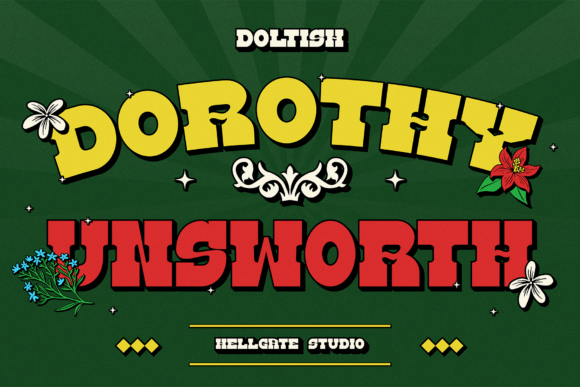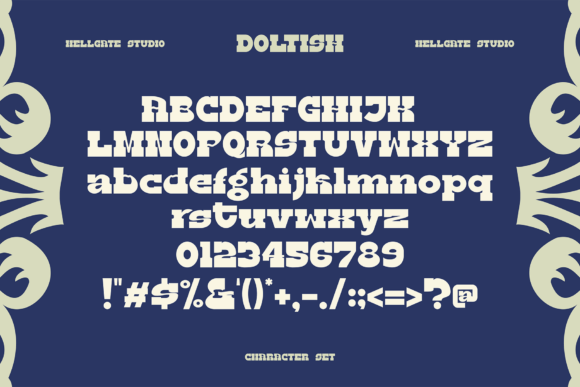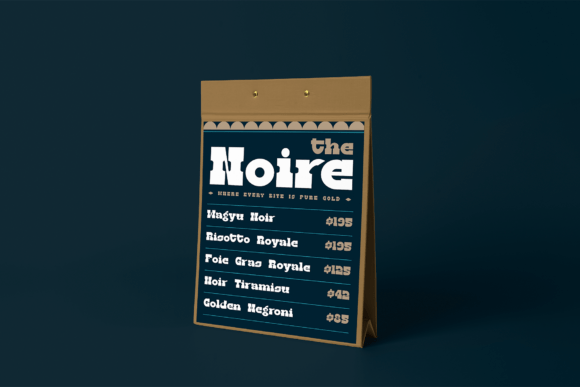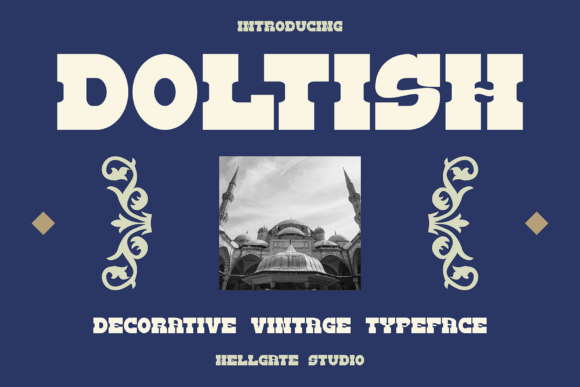
Discover the Charm of Doltish Font: A Vintage Display Typeface with a Playful Twist
Step into a world of charm with Doltish, a vintage display typeface that blends bold shapes with playful, ornate details. This font is designed to bring character, personality, and a touch of whimsy to any creative project. Its chunky, retro-inspired letterforms combined with soft decorative elements make it perfect for projects that want to feel both vintage and fun.
The Unique Characteristics of Doltish Font
Doltish is more than just a font – it’s an experience. Its bold, chunky letterforms are reminiscent of retro typography, while the soft decorative elements add a touch of playfulness and whimsy. This unique combination makes Doltish perfect for designers and crafters who want to add a dash of personality to their projects.
Perfect for a Variety of Creative Projects
Whether you’re working on posters, greeting cards, invitations, packaging, or bold branding, Doltish will make your designs shine with uniqueness. From statement headlines to eye-catching logos, Doltish captures attention instantly and leaves a lasting impression.
Cute Invitations and Greeting Cards
Doltish is ideal for creating cute and playful invitations and greeting cards. Its bold, chunky letterforms and soft decorative elements make it perfect for conveying heartfelt messages and adding a touch of personality to your designs.
Retro Posters and Quotes
Add a touch of nostalgia to your retro posters and quotes with Doltish. Its vintage-inspired letterforms and playful decorative elements make it perfect for creating eye-catching and memorable designs.
Playful Logos and Packaging
Doltish is also perfect for creating playful logos and packaging designs. Its bold, chunky letterforms and soft decorative elements make it perfect for brands that want to stand out and add a touch of personality to their branding.
Children’s Projects and Storybooks
Doltish is a great choice for children’s projects and storybooks. Its playful and whimsical design makes it perfect for creating engaging and interactive designs that kids will love.
Decorative Branding
Doltish is also perfect for decorative branding. Its bold, chunky letterforms and soft decorative elements make it perfect for creating unique and eye-catching brand identities.
Why Choose Doltish Font?
- Unique and eye-catching design: Doltish has a unique and eye-catching design that will make your projects stand out.
- Playful and whimsical: Doltish has a playful and whimsical design that adds a touch of personality to any project.
- Vintage-inspired: Doltish has a vintage-inspired design that adds a touch of nostalgia to any project.
- Versatile: Doltish is versatile and can be used for a variety of creative projects, from posters and greeting cards to logos and packaging.
With Doltish, every word becomes an artwork full of personality! 🌸 Its unique blend of bold shapes and playful, ornate details makes it perfect for designers and crafters who want to add a dash of charm and whimsy to their projects. Whether you’re working on a poster, greeting card, logo, or packaging design, Doltish is the perfect choice.